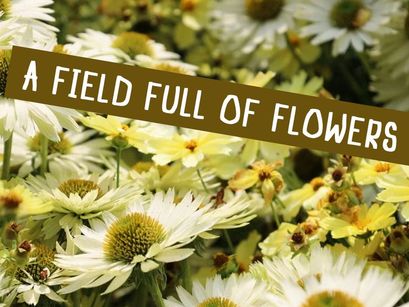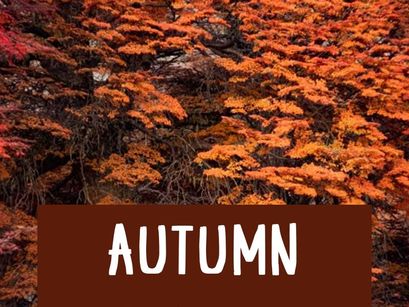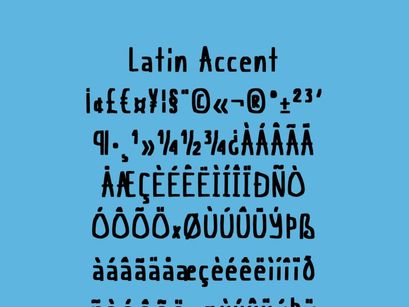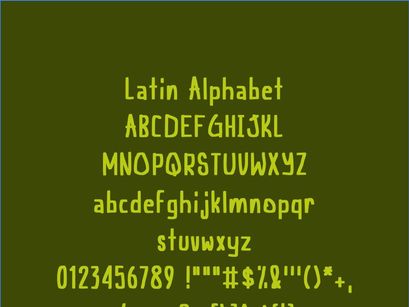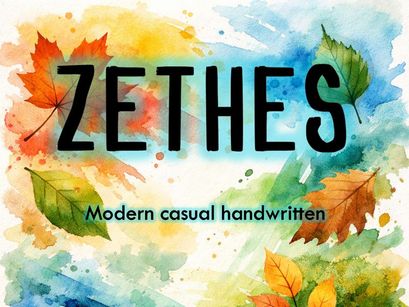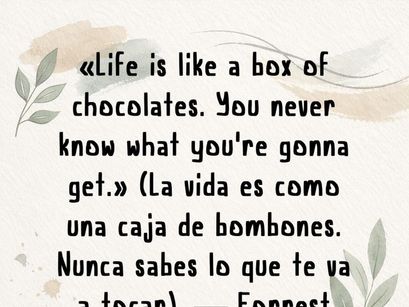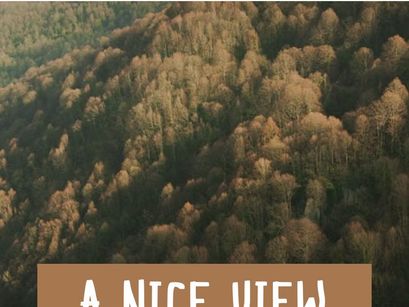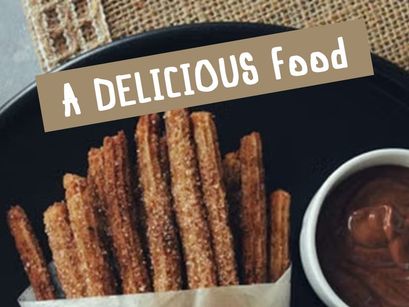
ZETHES
ZETHES is a modern, handcrafted typeface featuring bold, expressive strokes inspired by the fluidity of brushwork and the energy of color. Its casual handwritten style blends natural charm with elegance, making it perfect for branding, packaging, planners, inspirational quotes, and digital projects with a creative soul.
It includes TTF files, support for Latin accents, and a full character set for English and Spanish.
• Modern, artistic style
• Balanced, legible lettering
• Ideal for visual projects and digital lettering